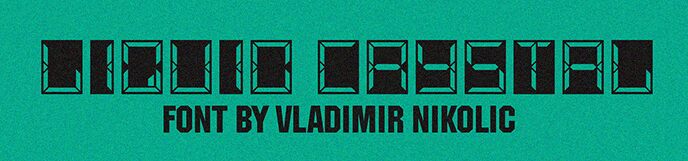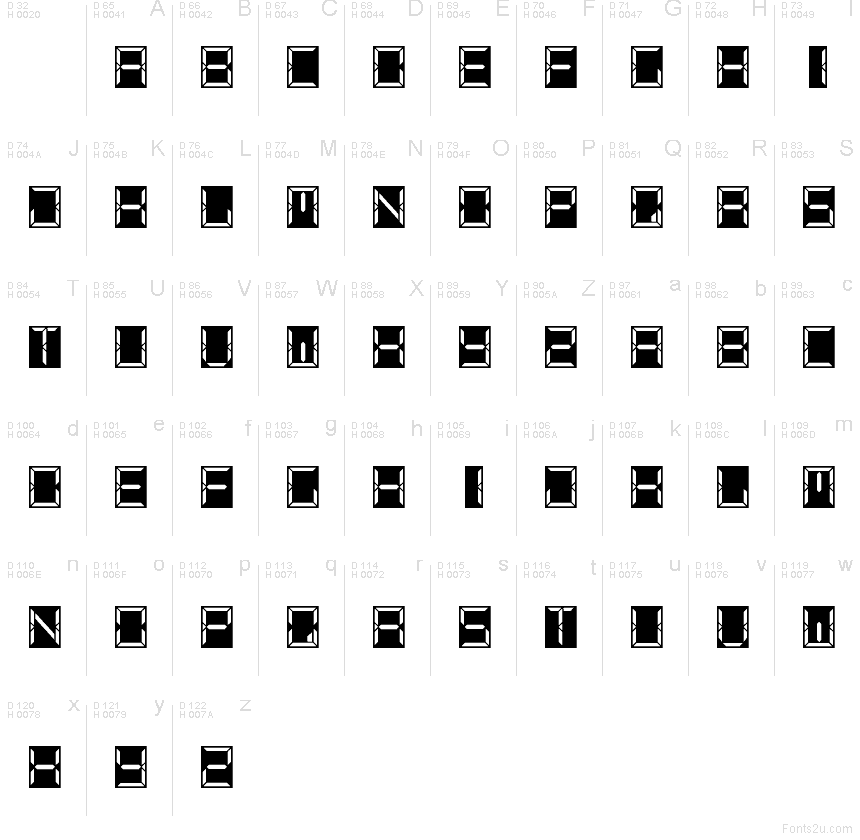
Liquid Crystal Extravagant font by Vladimir Nikolic is a free digital display typeface that turns classic LCD segments into bold, faceted architecture. Each character sits in a tall, rectangular frame, with sharp internal cuts that glow like neon tubing against the black background. The rhythm of the repeating modules keeps even the wildest words readable, while the tight, grid-like spacing gives every line the feel of a futuristic scoreboard or control panel.
Using Liquid Crystal Extravagant, your titles snap with retro-tech energy that’s hard to miss. This free font shines on sci‑fi movie posters, synthwave album covers, hacker‑themed event flyers, arcade game logos, futuristic UI mockups, and bold YouTube thumbnails. Run it large for maximum impact, then pair it with a clean geometric sans for body text to keep the high-tech drama grounded and clear.